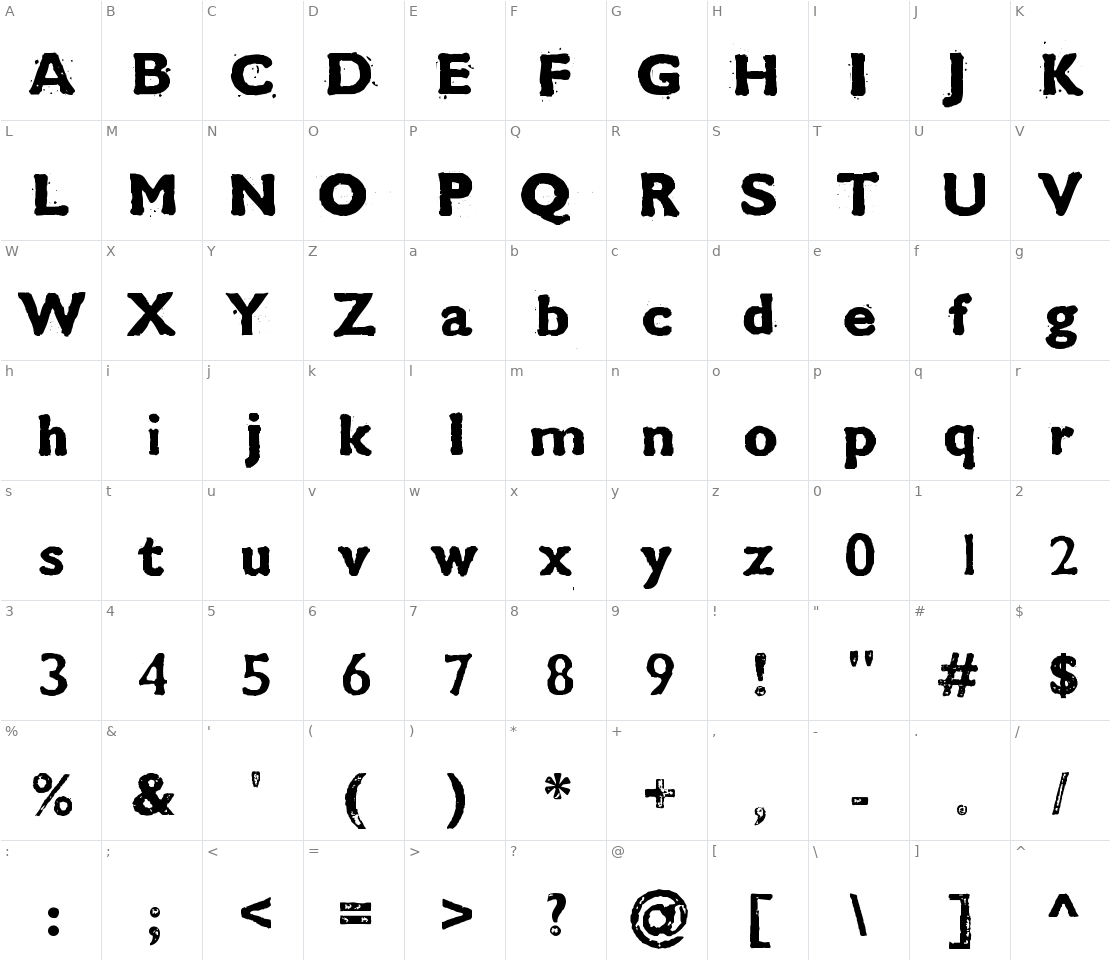
CM Destroy
CM Destroy is a heavy, battered display face from Charly Masci with letterforms that look like they've been sandblasted and left to corrode. The thick strokes hold up despite all the surface damage, keeping things legible even as the grunge texture eats away at the edges. Built for headlines, posters, and album art where you want type that feels physically worn down.